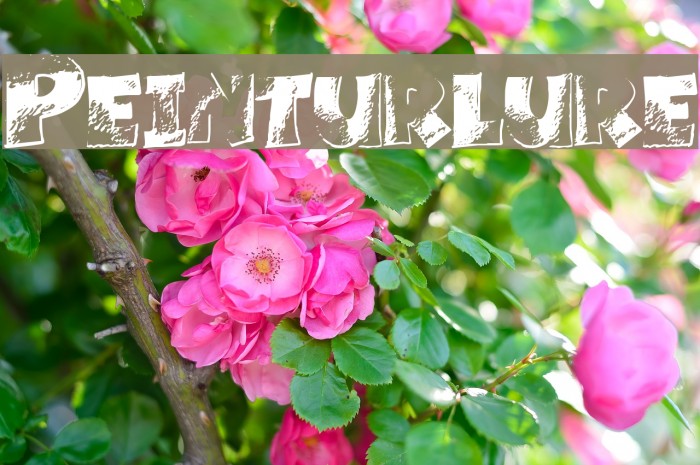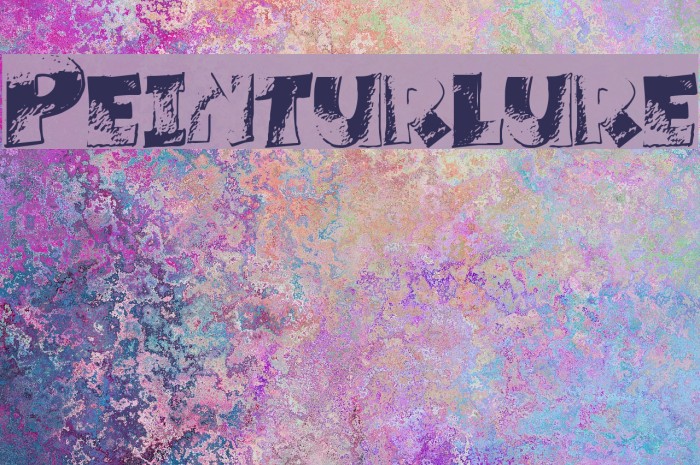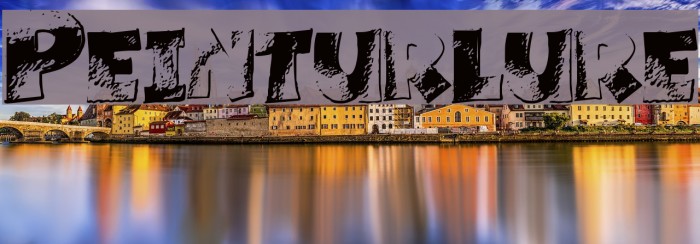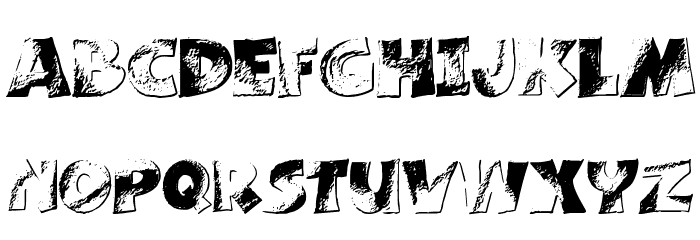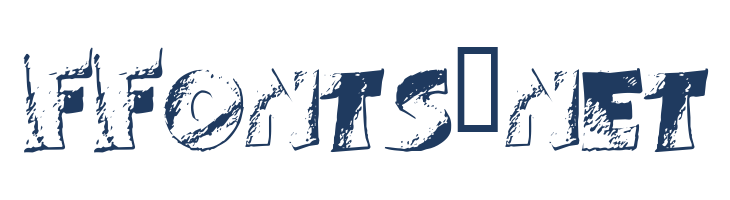
Peinturlure Font
This font features a bold and distressed style, reminiscent of graffiti or urban street art. The characters are heavily textured, giving them a rough, painted appearance. Each letter appears as if it has been hand-brushed with varying pressure, creating an uneven and dynamic look. The uppercase and lowercase letters maintain a consistent style, with jagged edges and irregular shapes that add to the chaotic aesthetic. The numbers and special characters follow the same design principles, ensuring a cohesive look across all glyphs. This font is ideal for projects that require a gritty, rebellious, or artistic vibe.
A bold, distressed font with a graffiti-like, hand-painted style.
• Proposed Projects: Perfect for street art posters, music album covers, edgy branding, or any design needing a raw, artistic touch.
• Category: Decorative/Display
• Bold: Yes
• Italic: No
• Weight: Bold
• Width: Normal
• Character Spacing: Normal
• Contrast: High
• Overall Style: Urban, Artistic, Grunge
• Use Case: Headlines, Posters, Album Covers